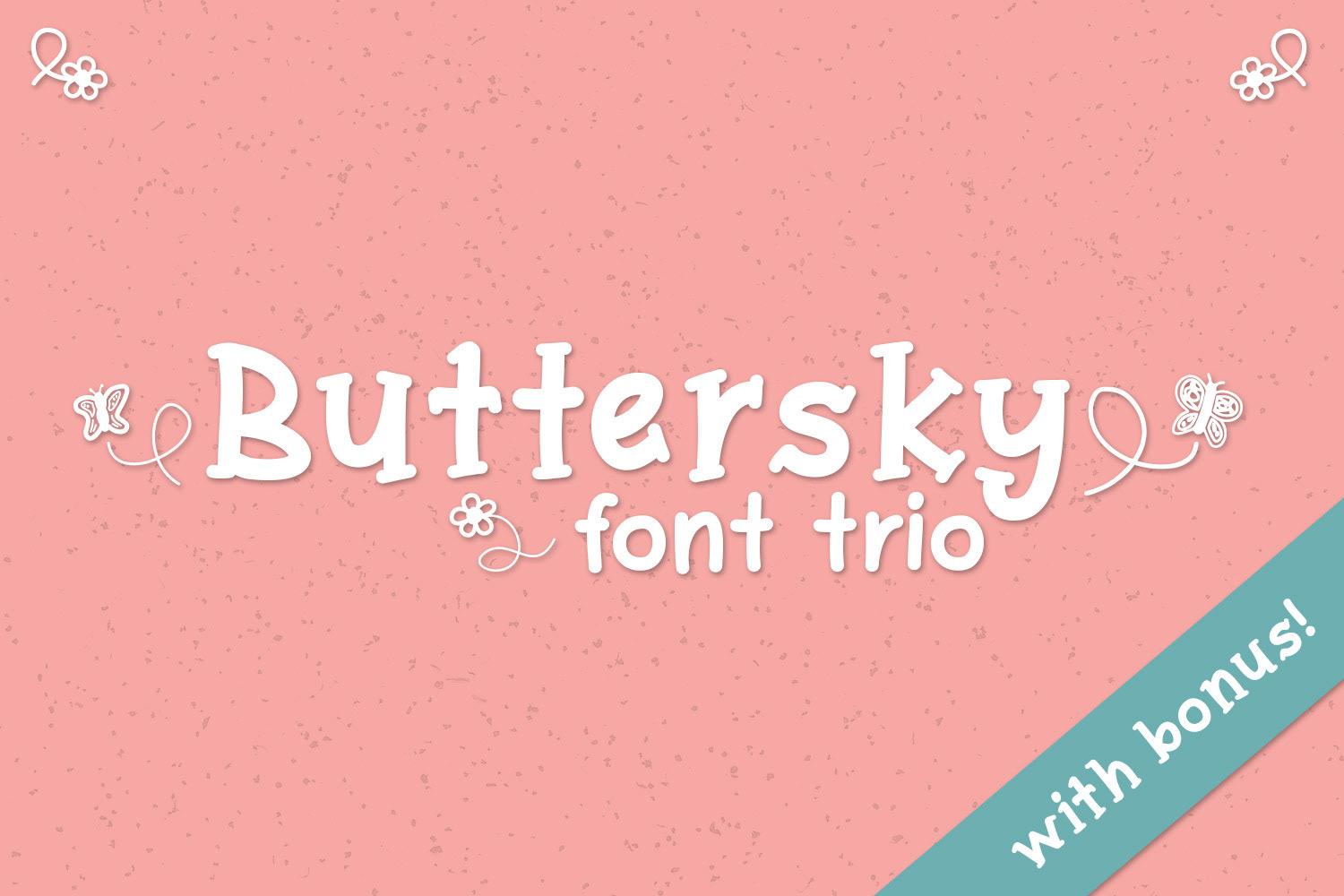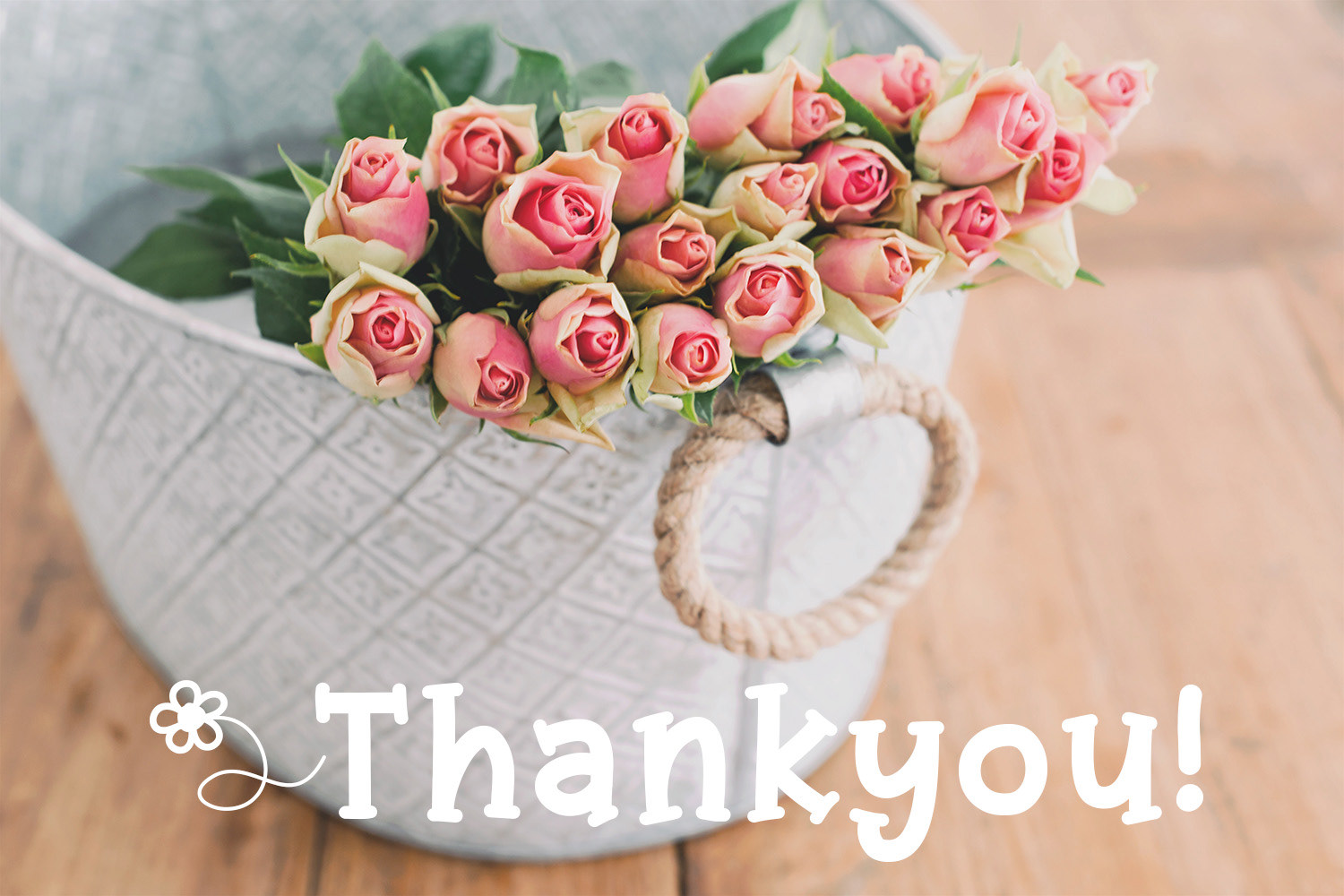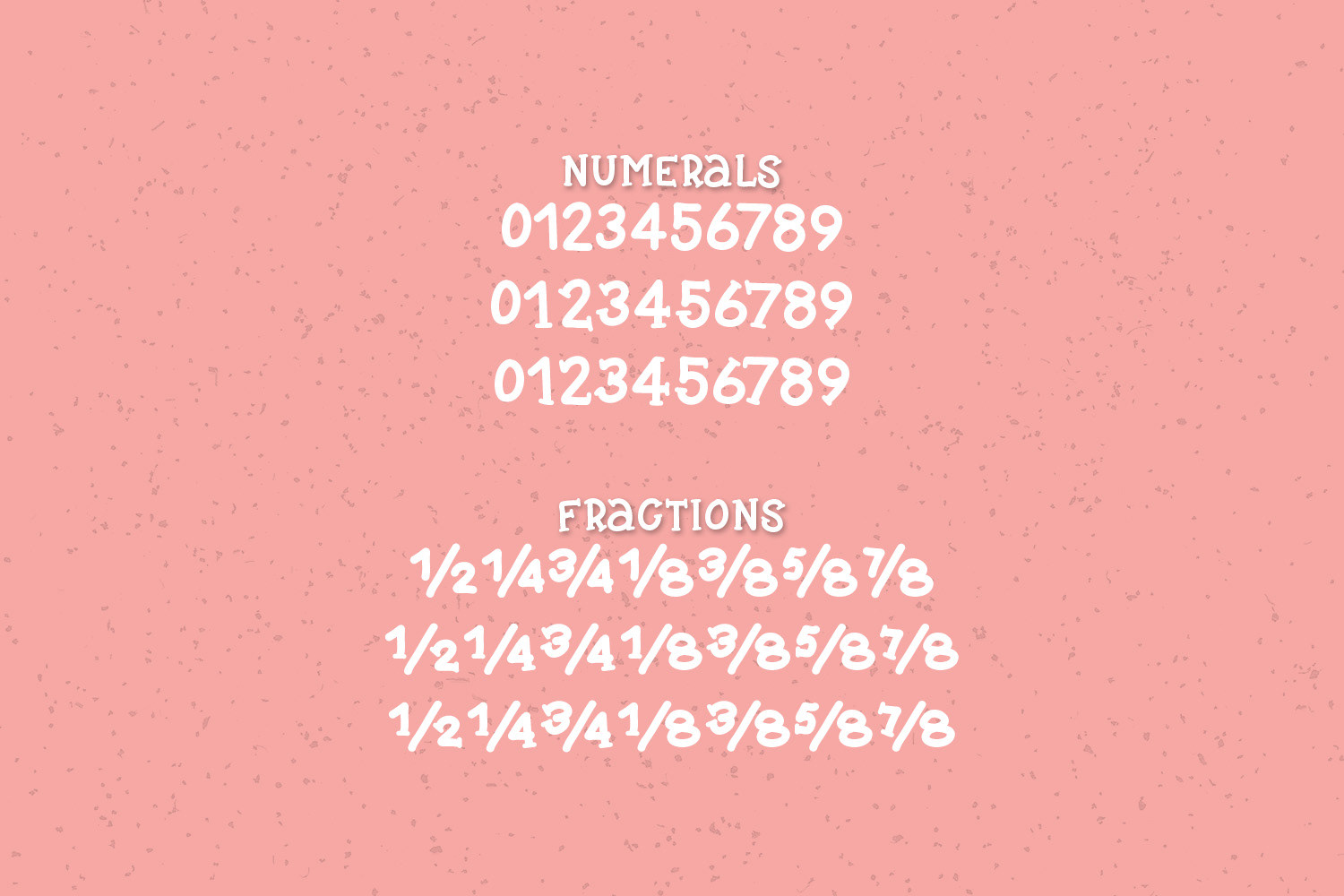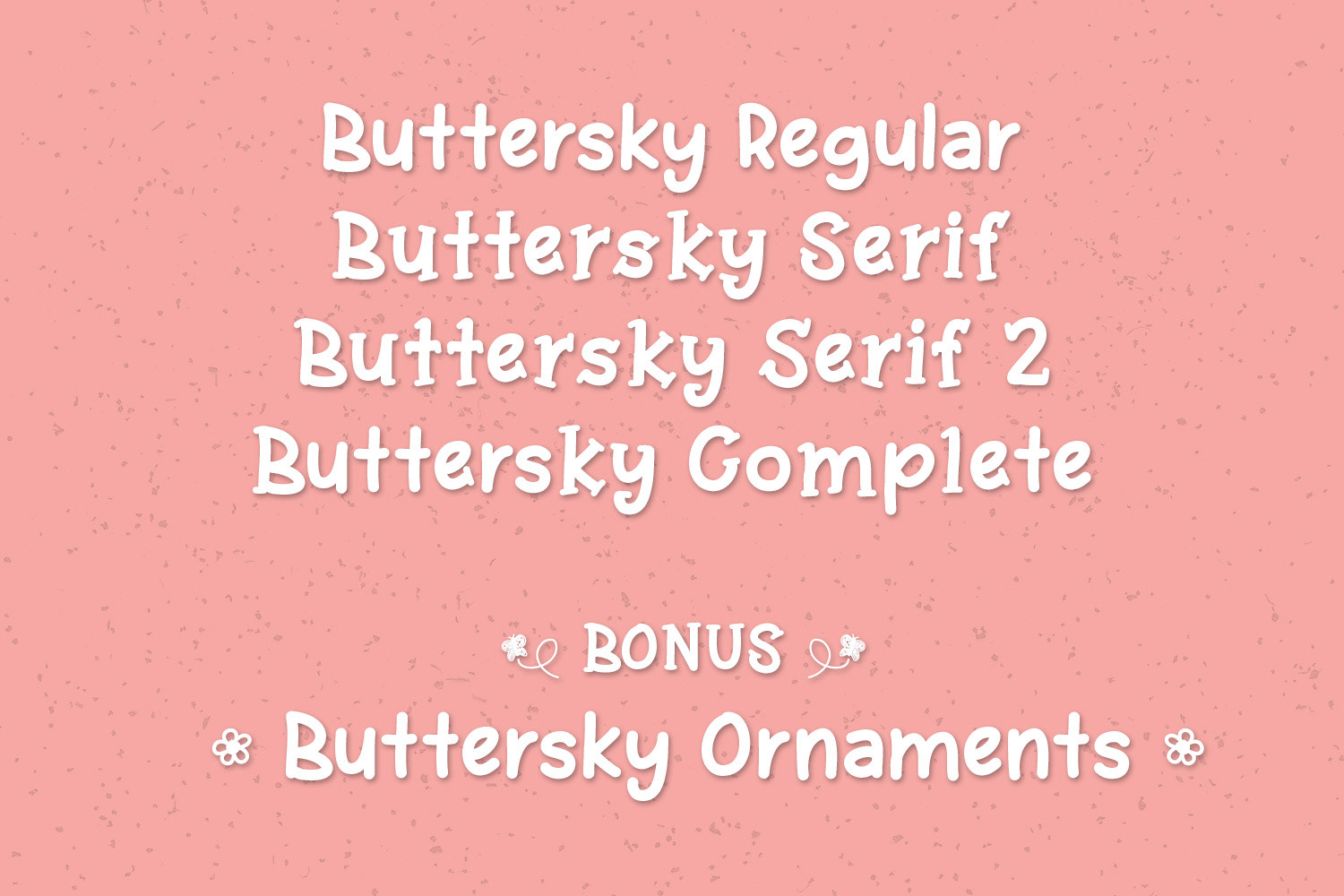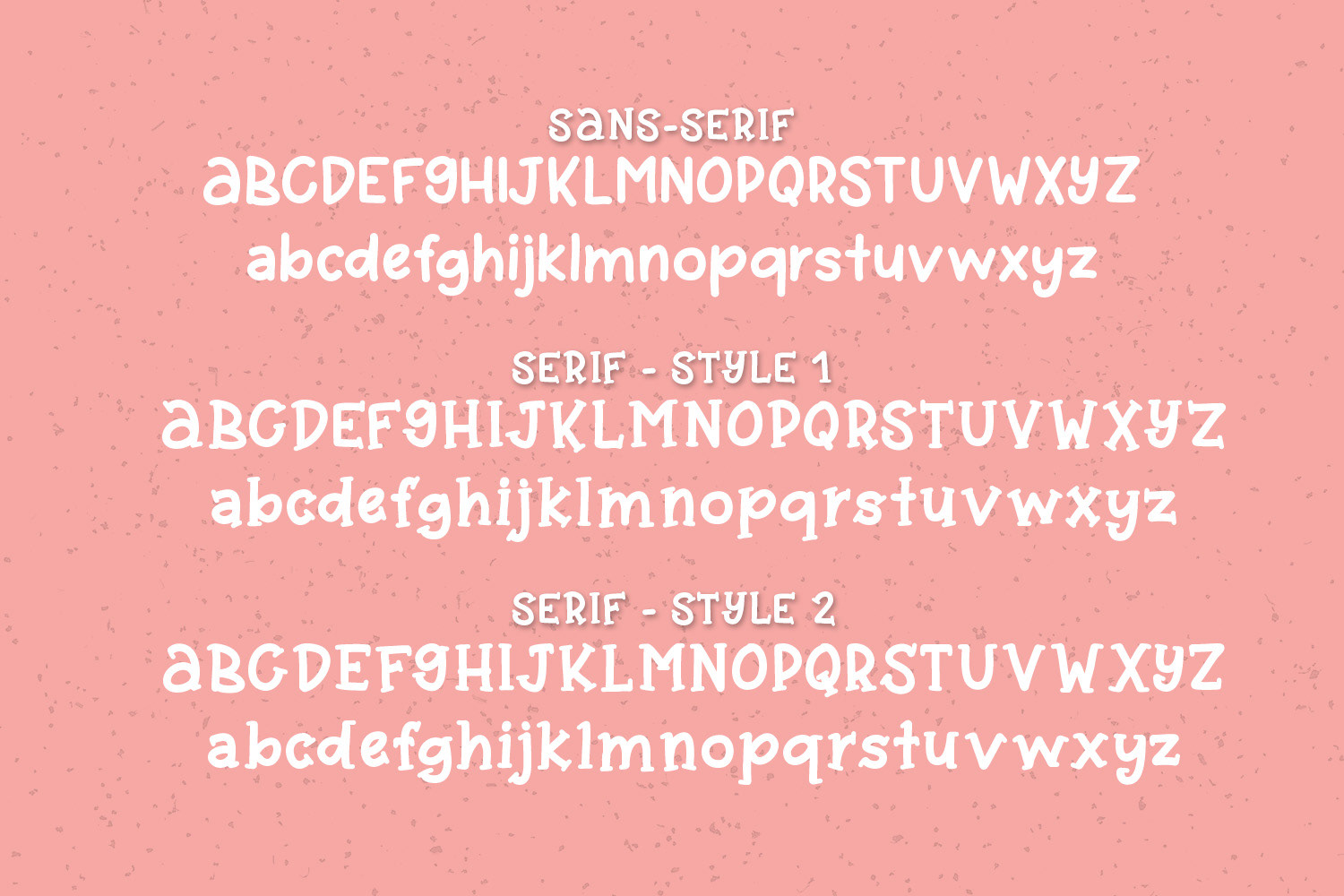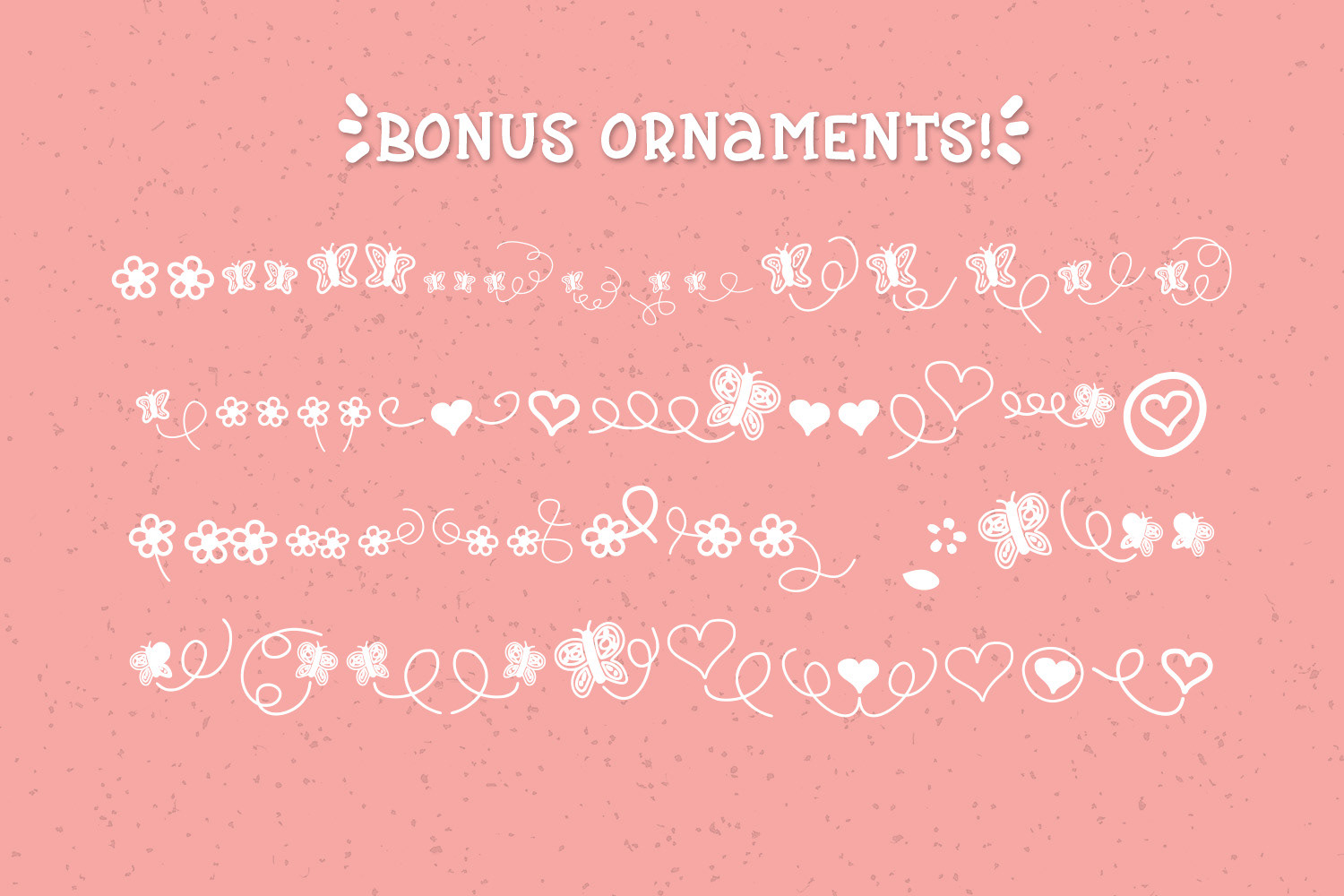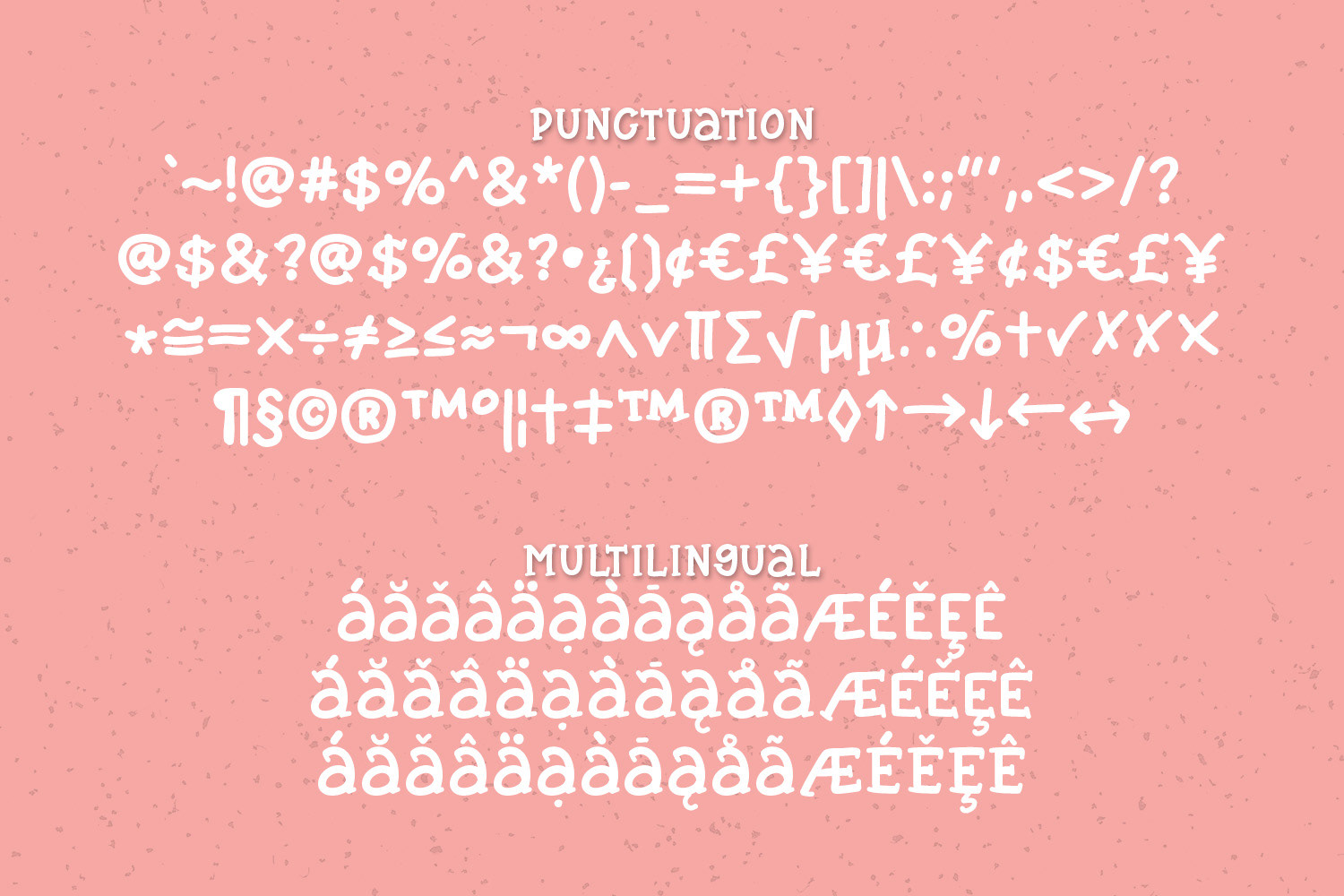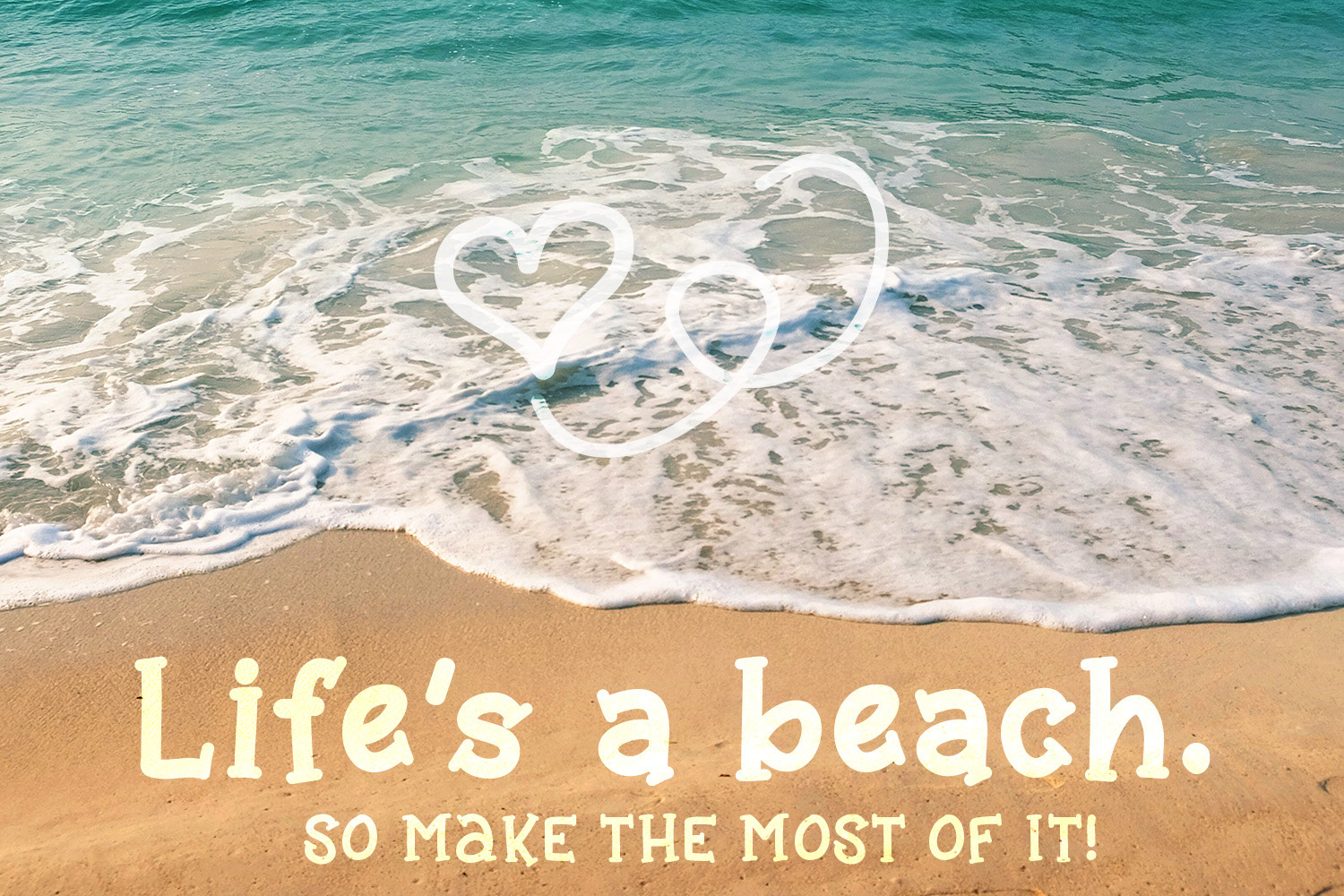
Introducing the Buttersky Font Trio!
Buttersky is a mixed case font consisting of a sans-serif and two styles of serif.
With multilingual support and a bonus ornaments file to compliment your design with hand-drawn doodles.